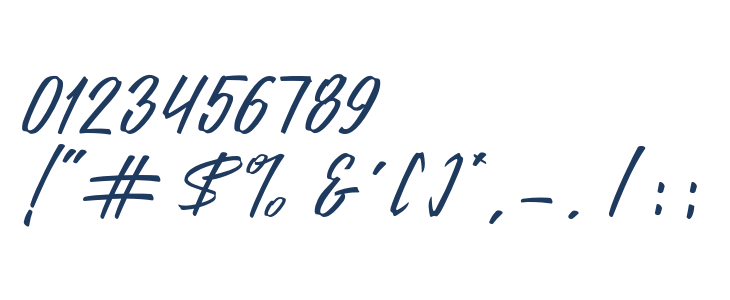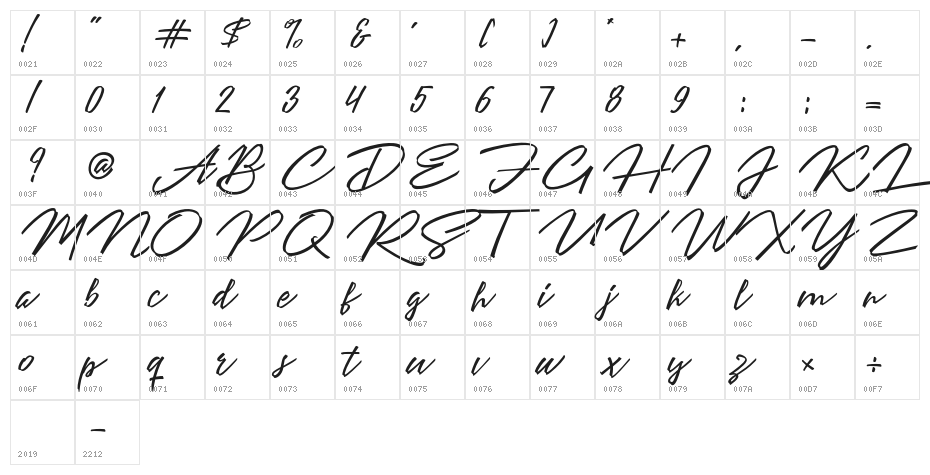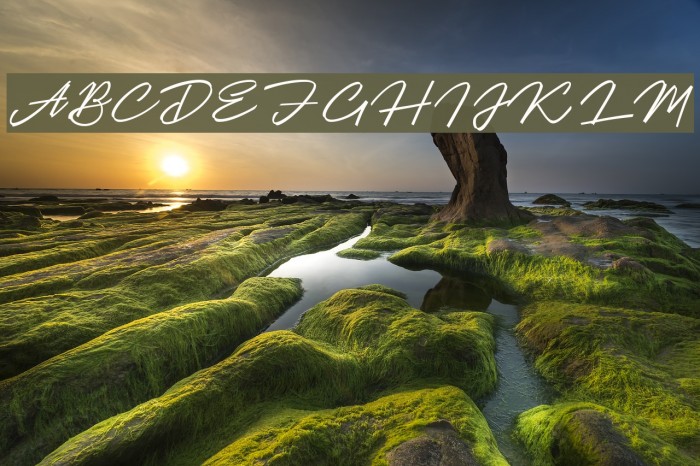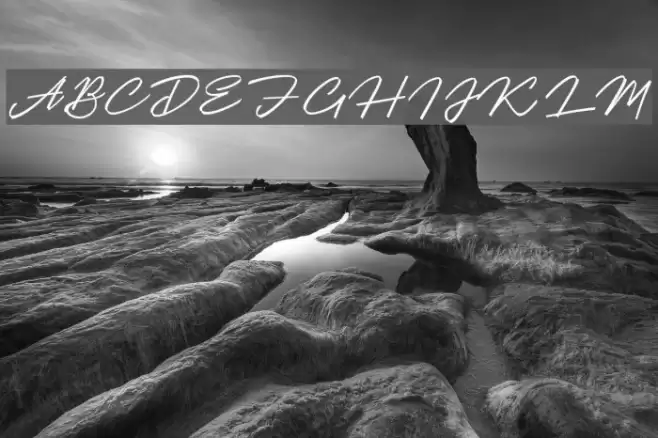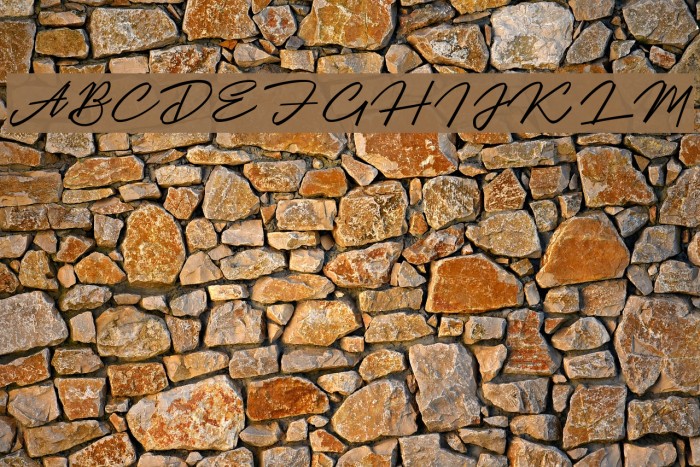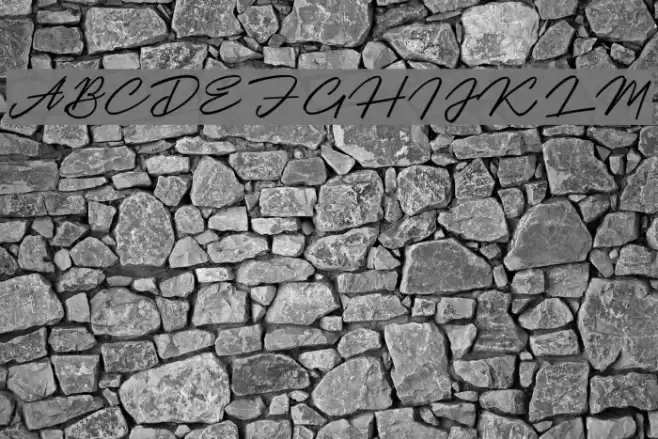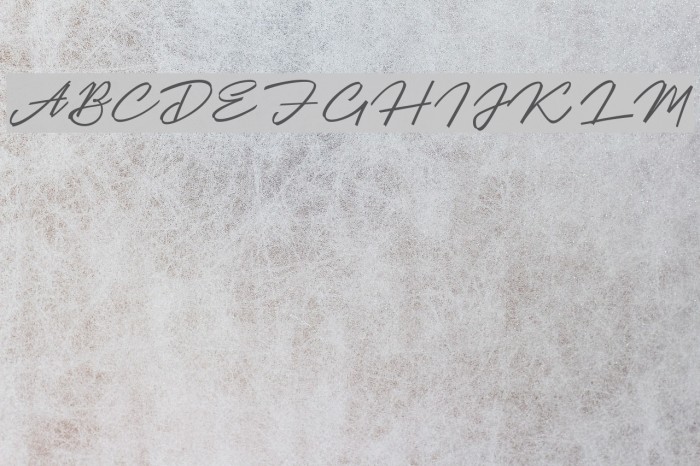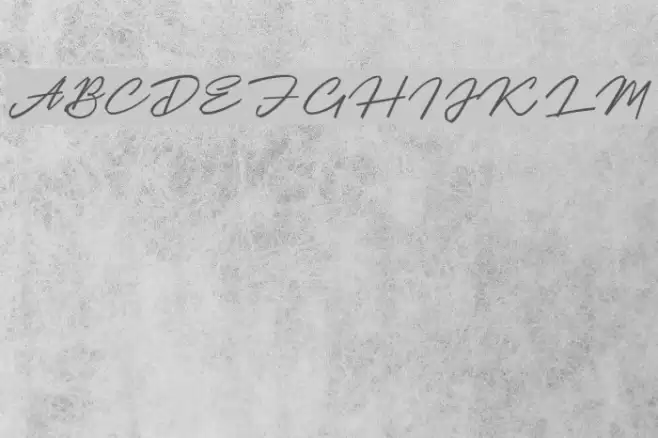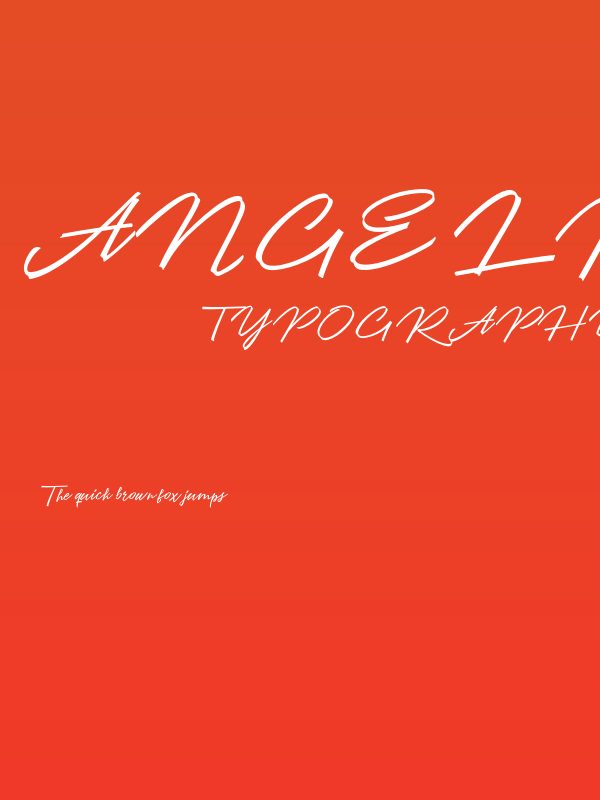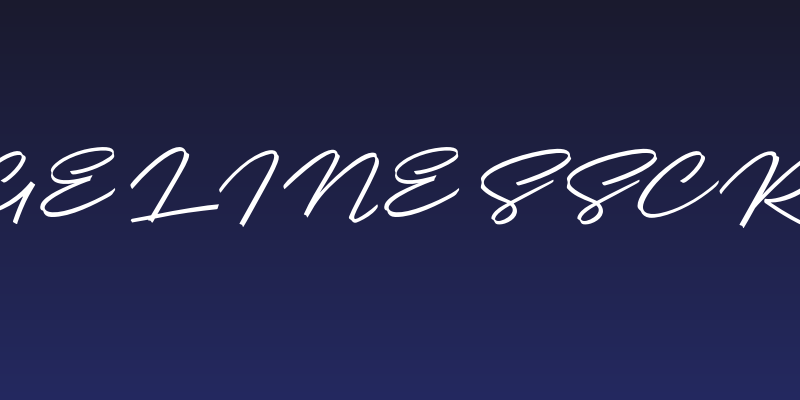
AngelinesScript Font
AngelinesScript Description
This font features a flowing, cursive style that mimics elegant handwriting. The uppercase letters are slightly slanted and connected, giving a sense of fluidity and grace. The lowercase letters maintain a consistent stroke width, enhancing readability while preserving the script's artistic flair. Numbers and special characters are designed to blend seamlessly with the alphabet, maintaining the overall aesthetic. The font's smooth curves and delicate lines make it ideal for projects that require a personal touch.
| Proposed Projects | Ideal for wedding invitations, greeting cards, personal branding, and elegant logos. |